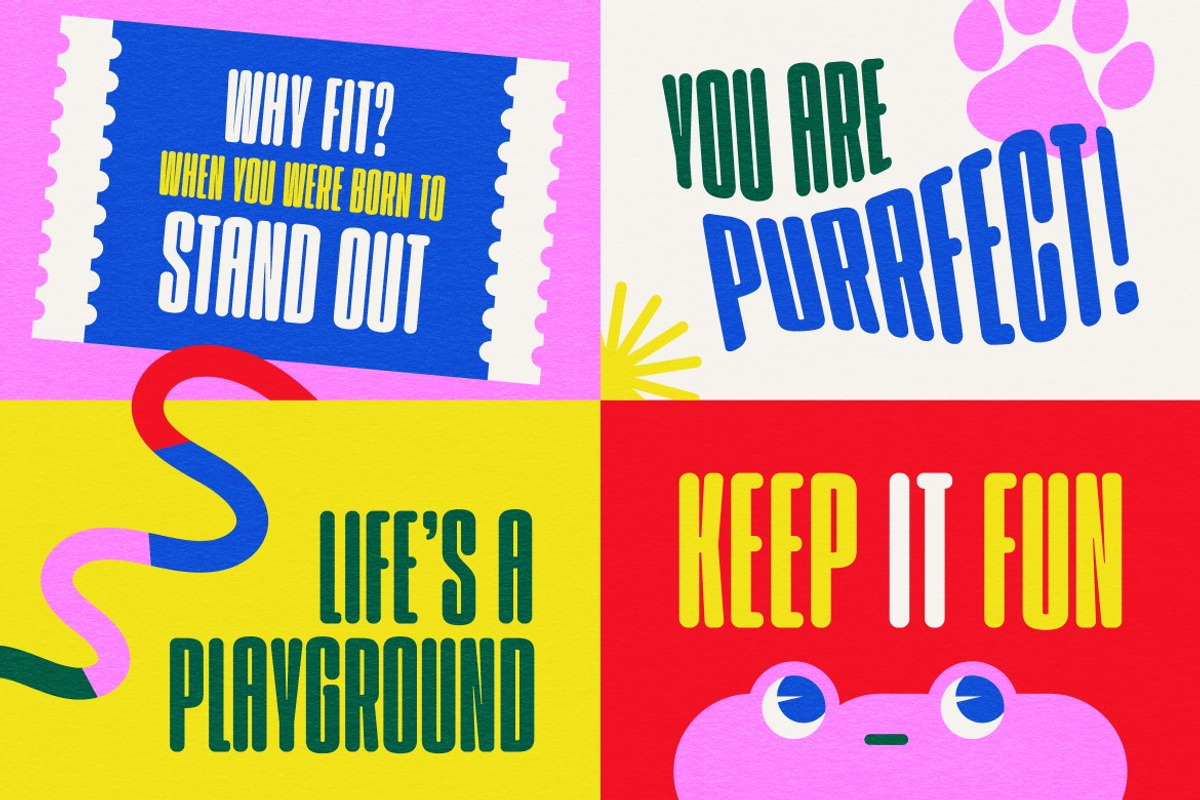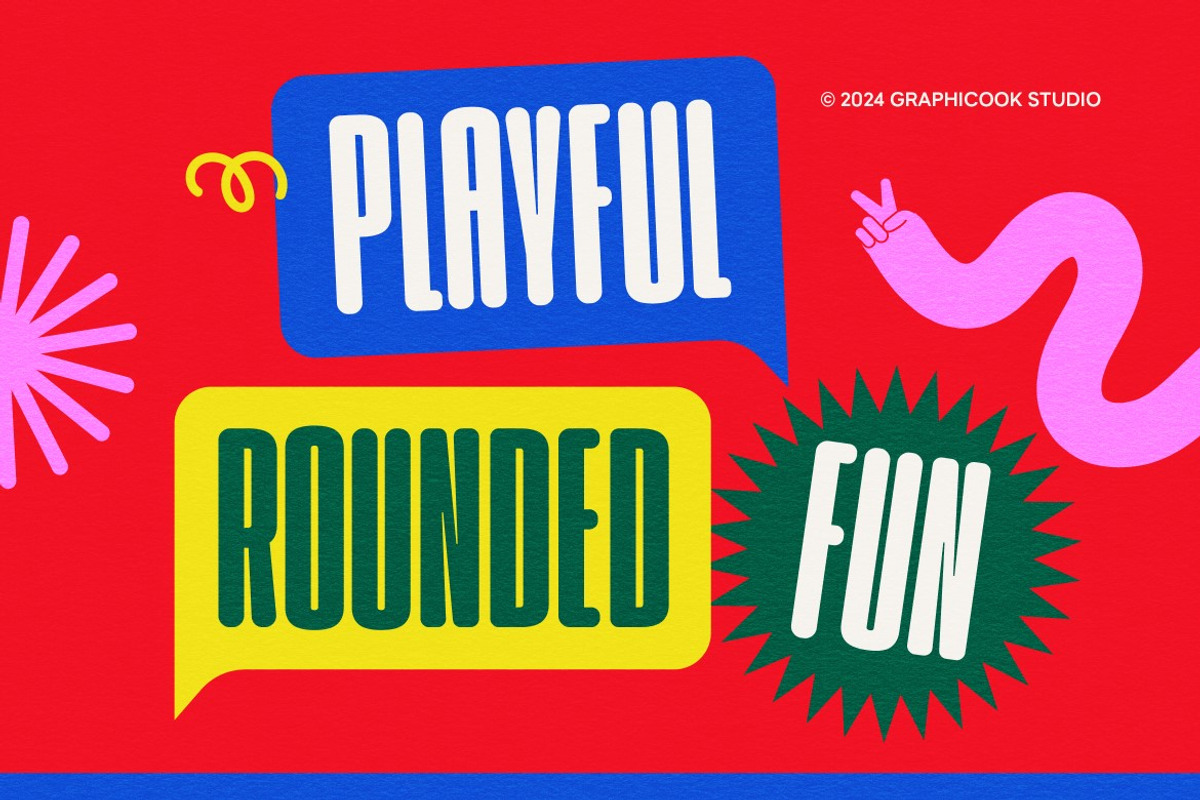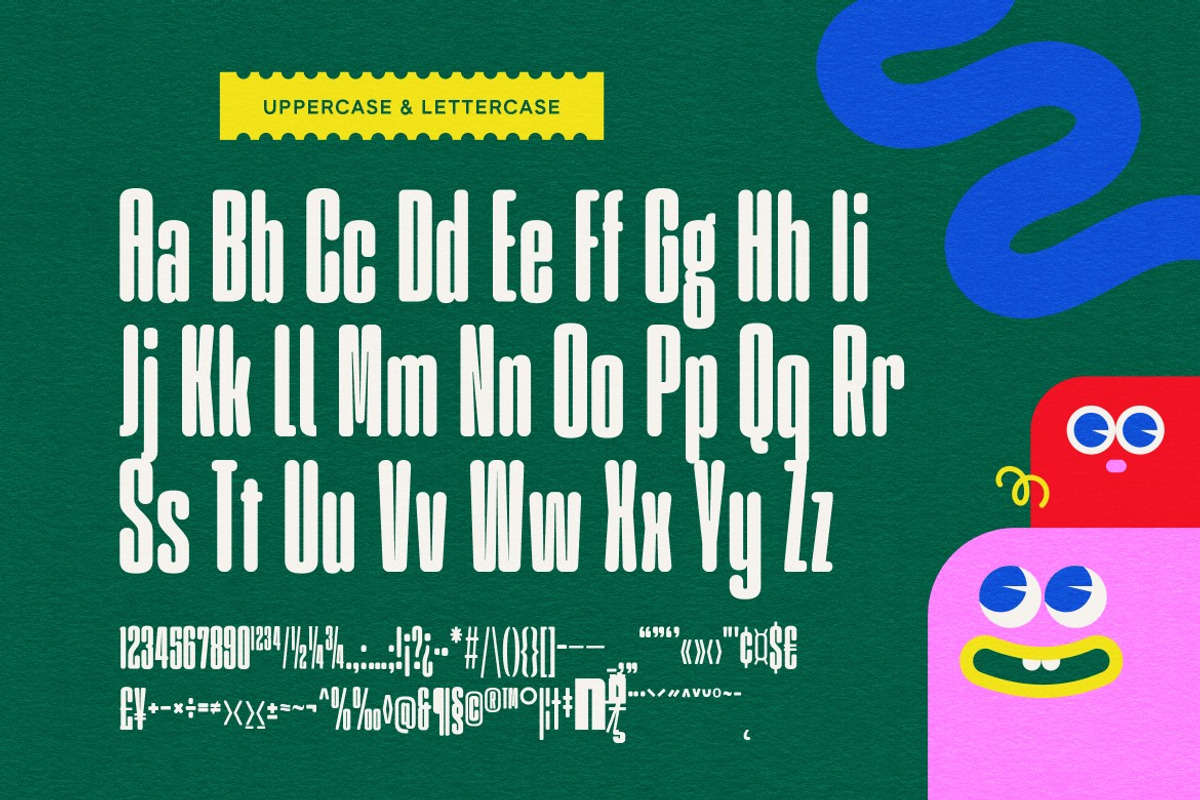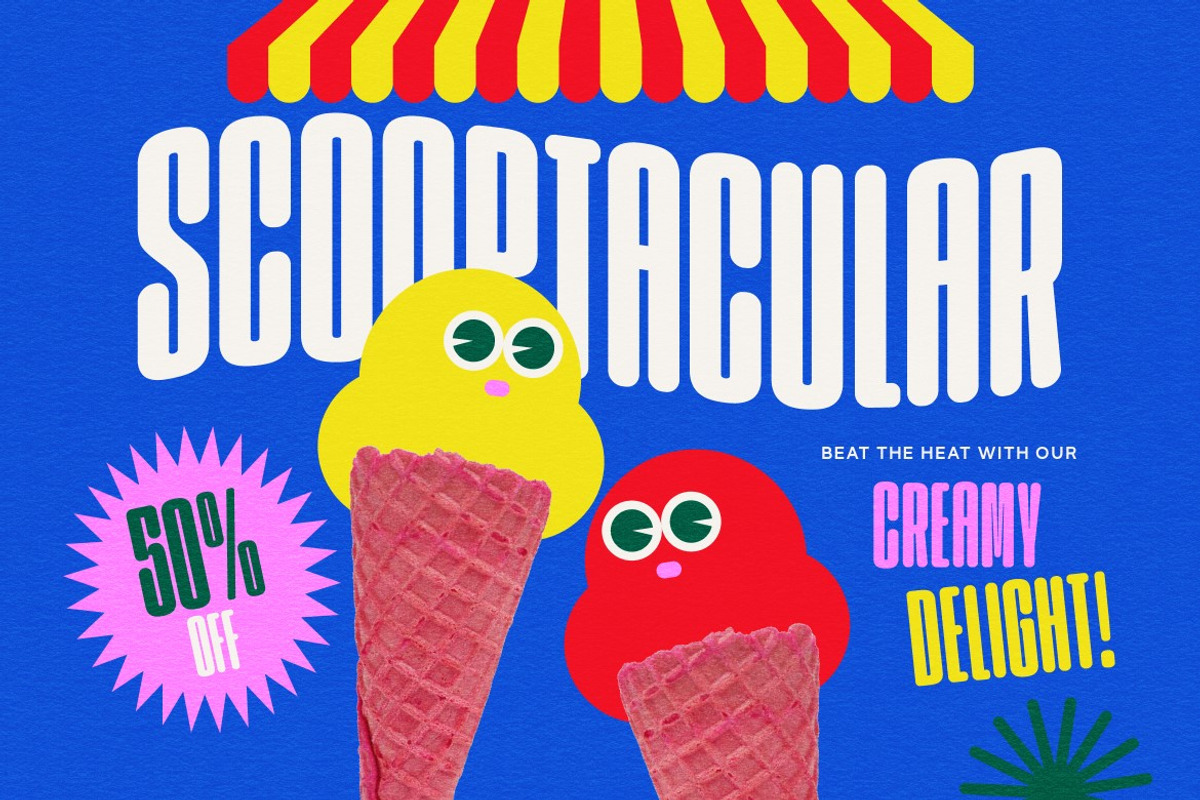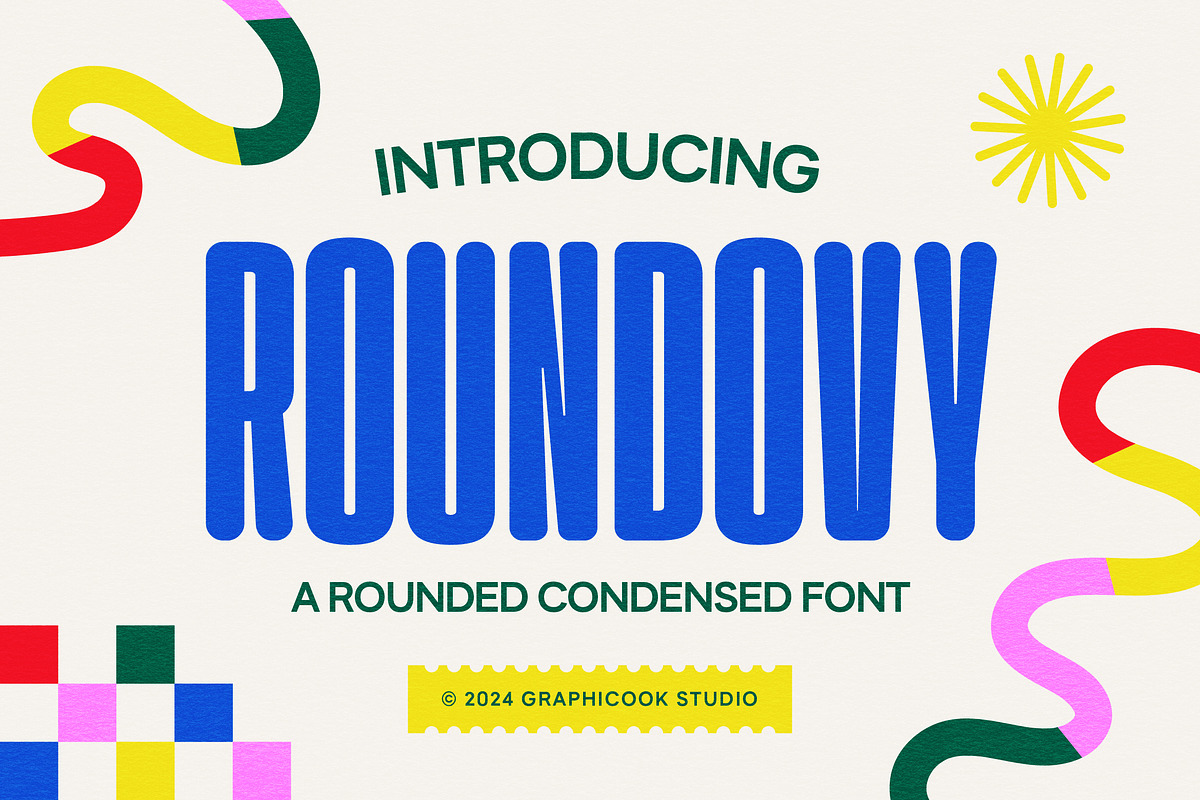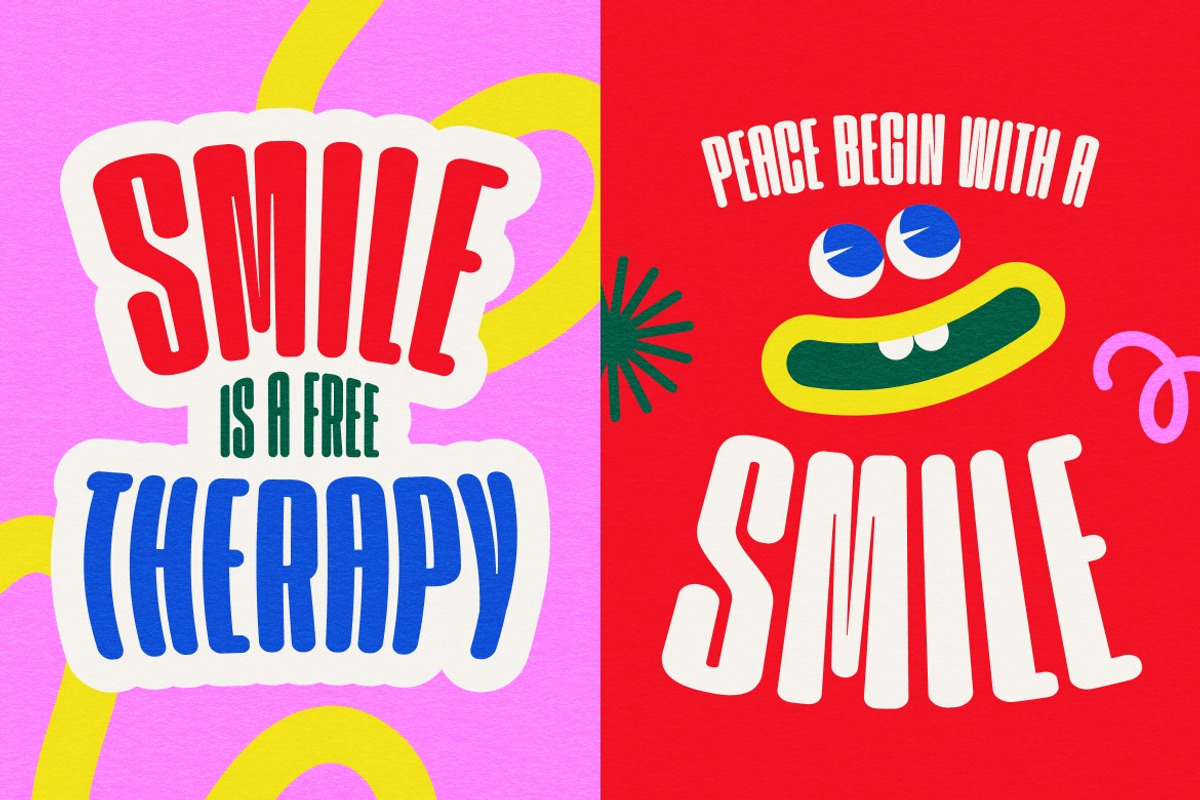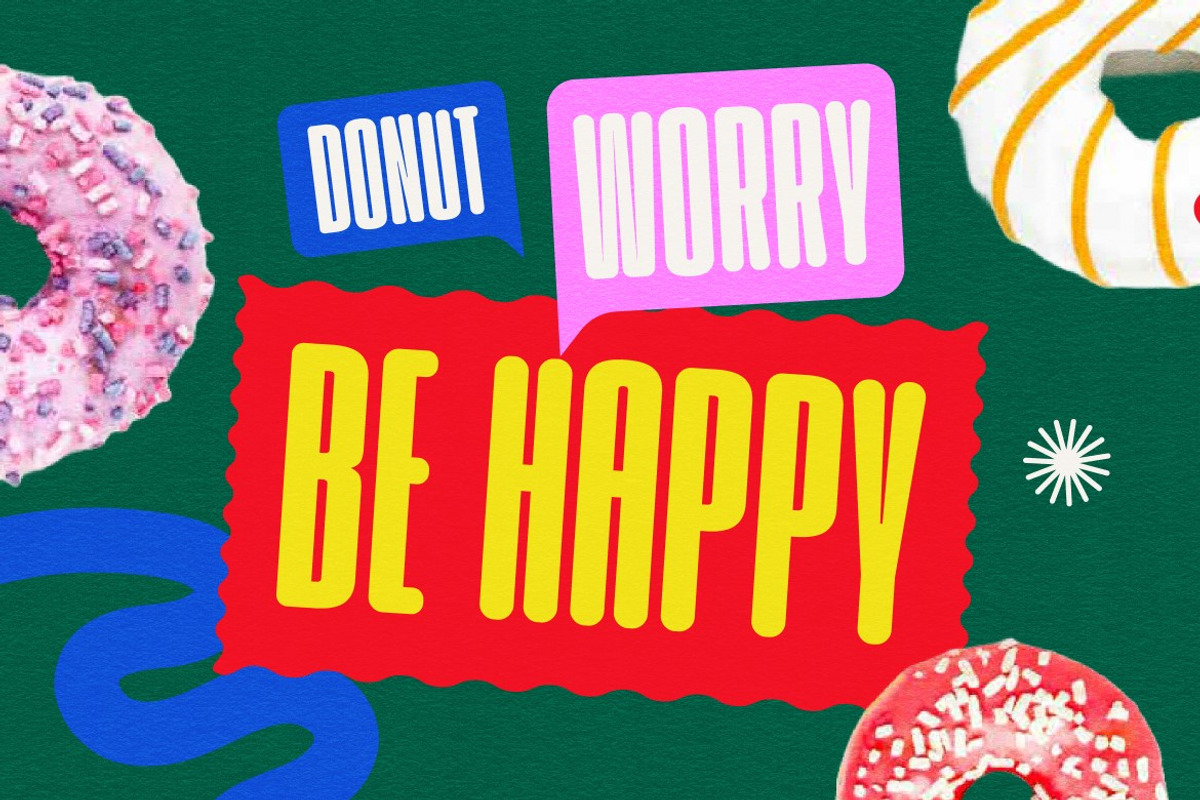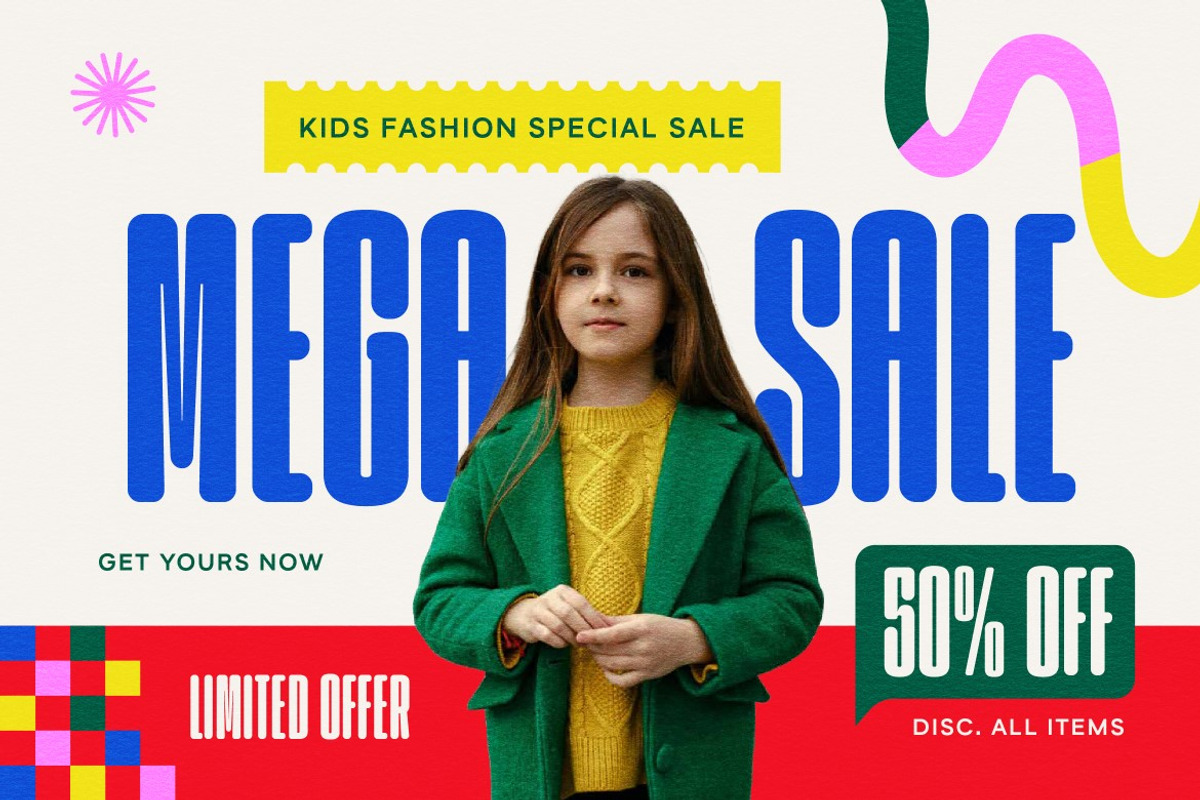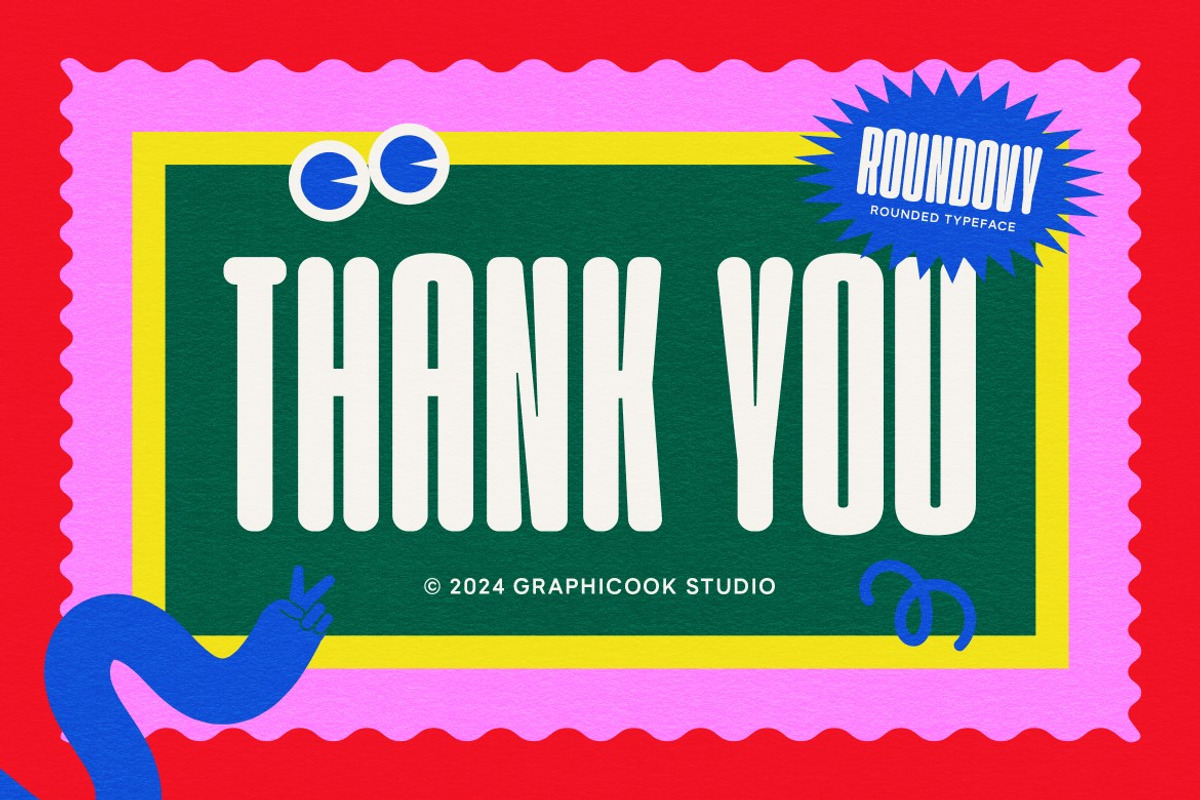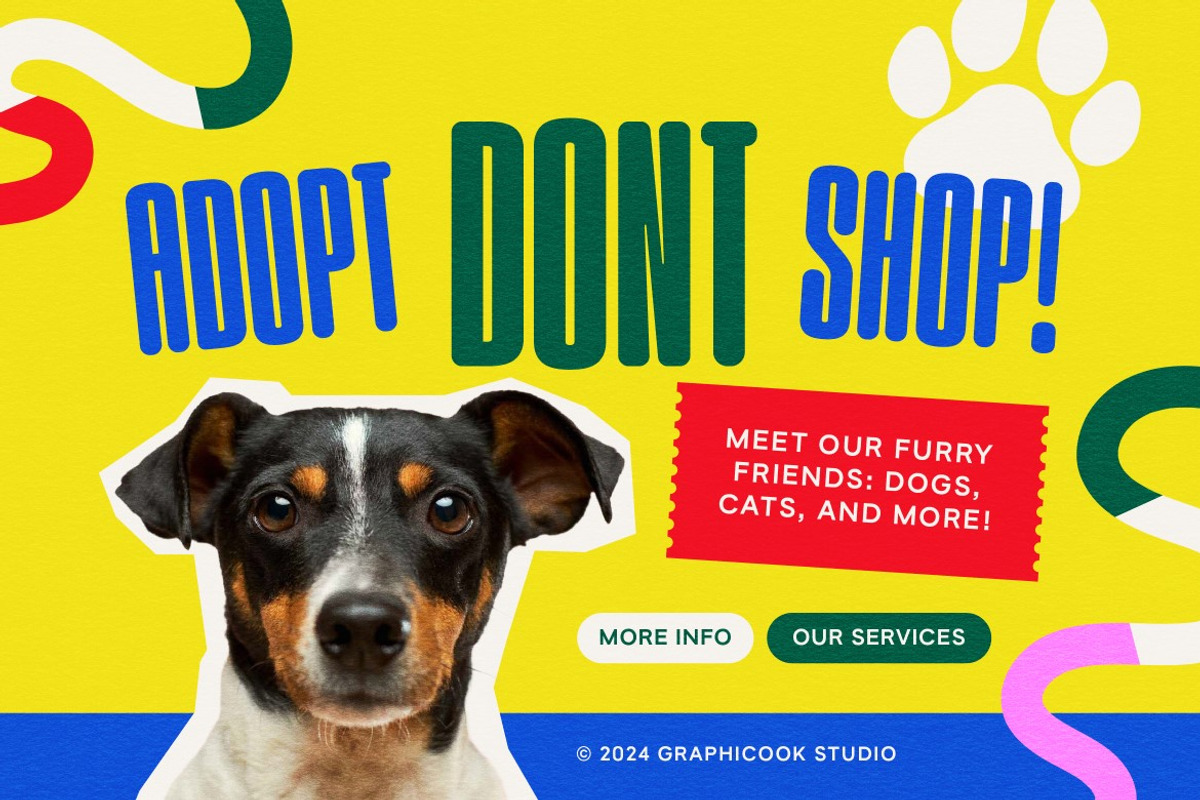
Roundovy
Introducing Roundovy, a condensed typeface with rounded letters. Perfect for headlines, posters, or any project needing a bold, tall font.
Roundovy is perfect for headlines, logotypes, magazines, packaging, quotes, movies, games, cover albums, book covers, and flyers, it's a perfect solution for creating eye-catching designs that stand out in any context.